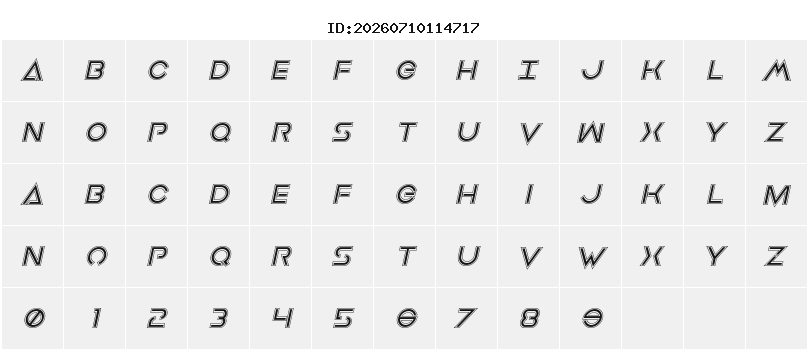
• Font Name: Earth Orbiter Academy Italic
• Full Font Name: Earth Orbiter Academy Italic
About Earth Orbiter Academy Italic.ttf
Earth Orbiter Academy Italic.ttf is a modern, elegant sans-serif font designed for ultimate readability and visual harmony. Perfect for branding, headlines, web design, and print materials.